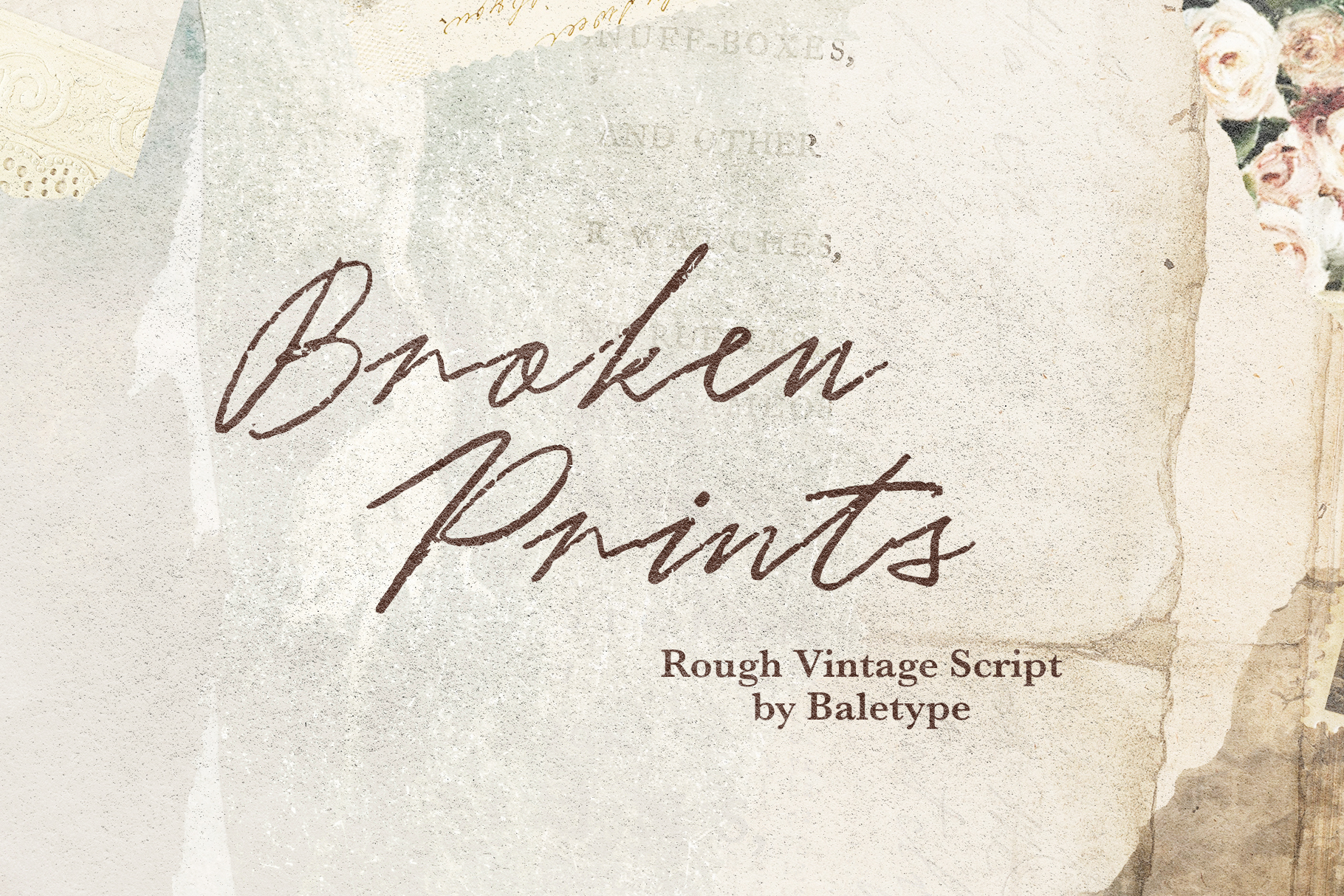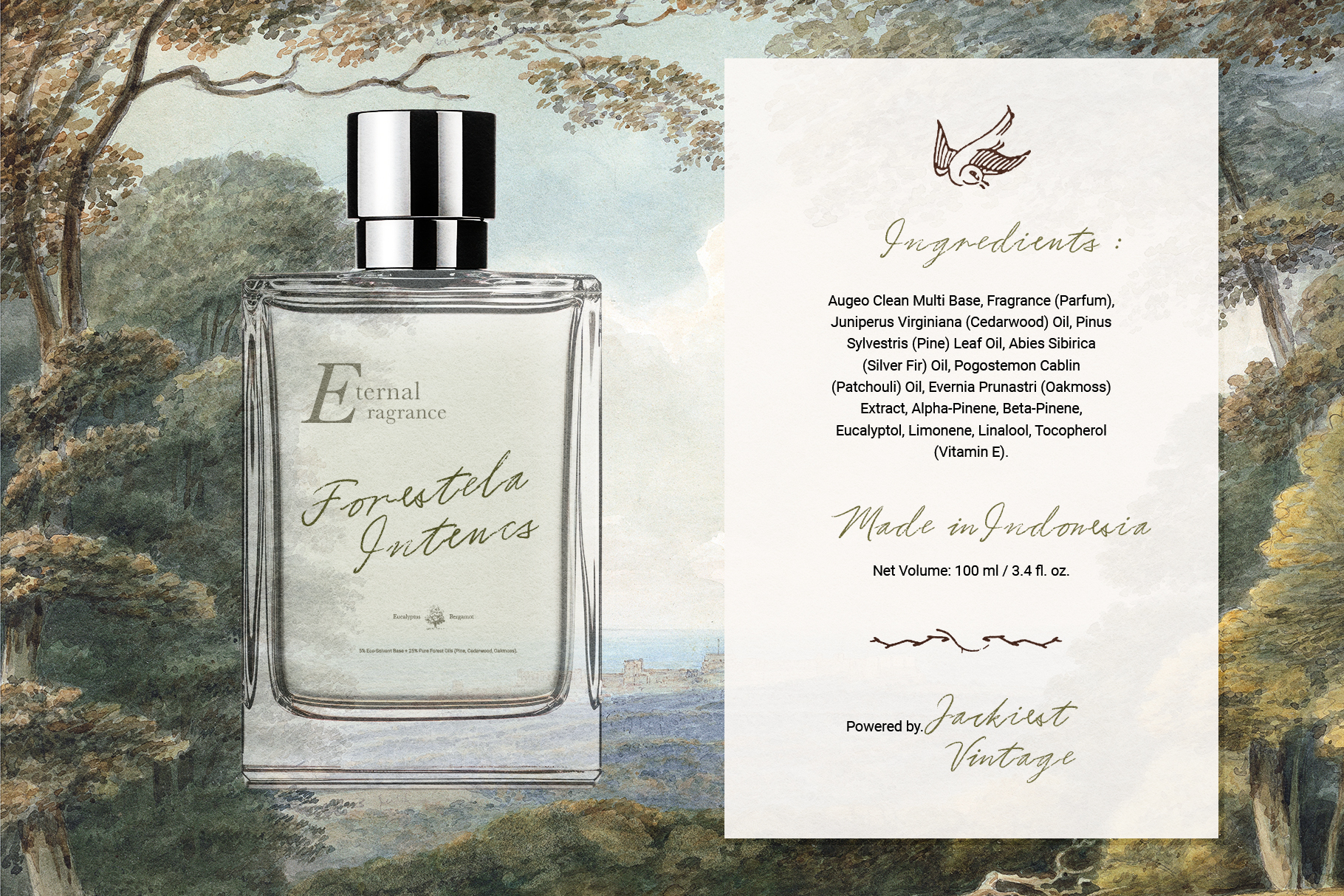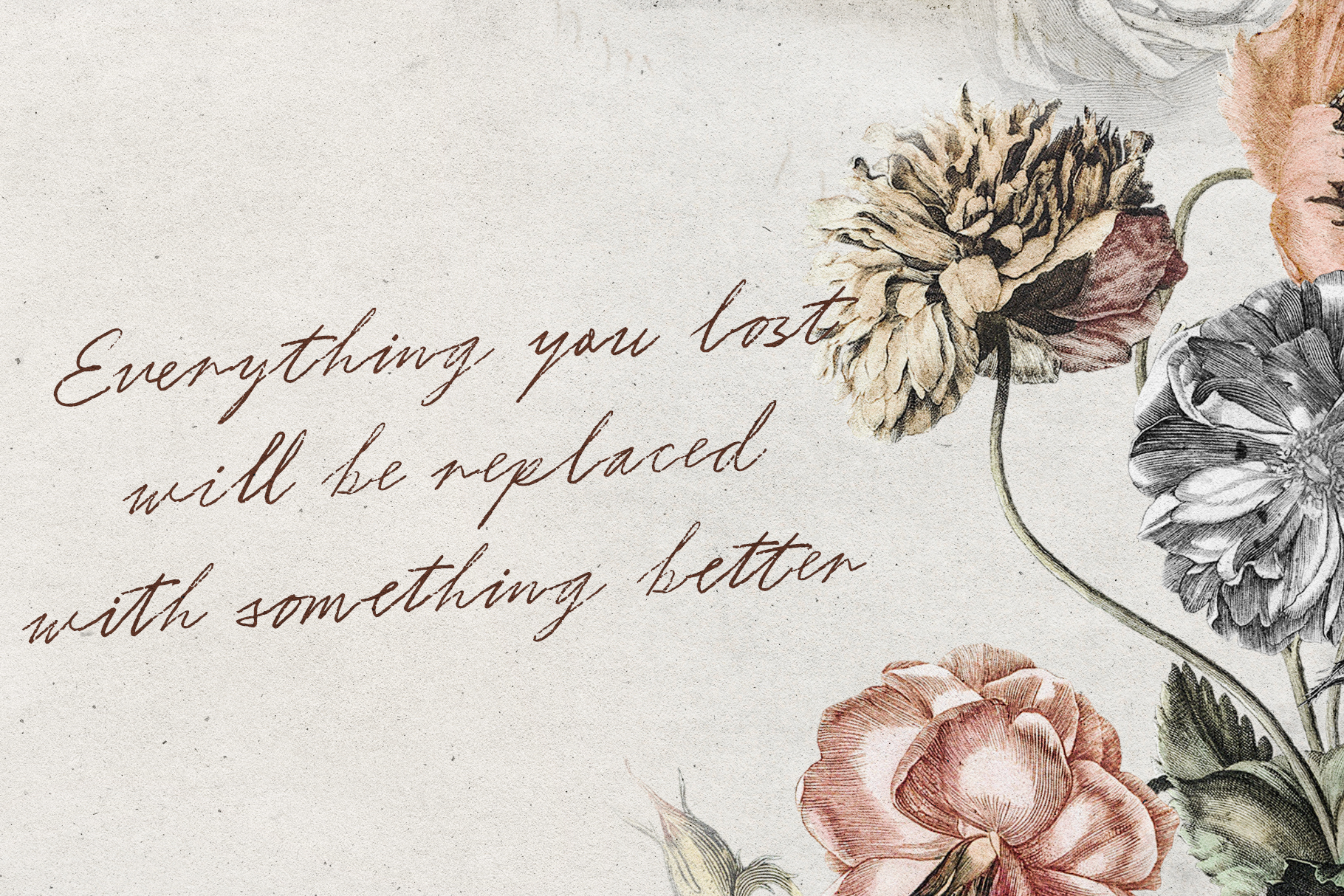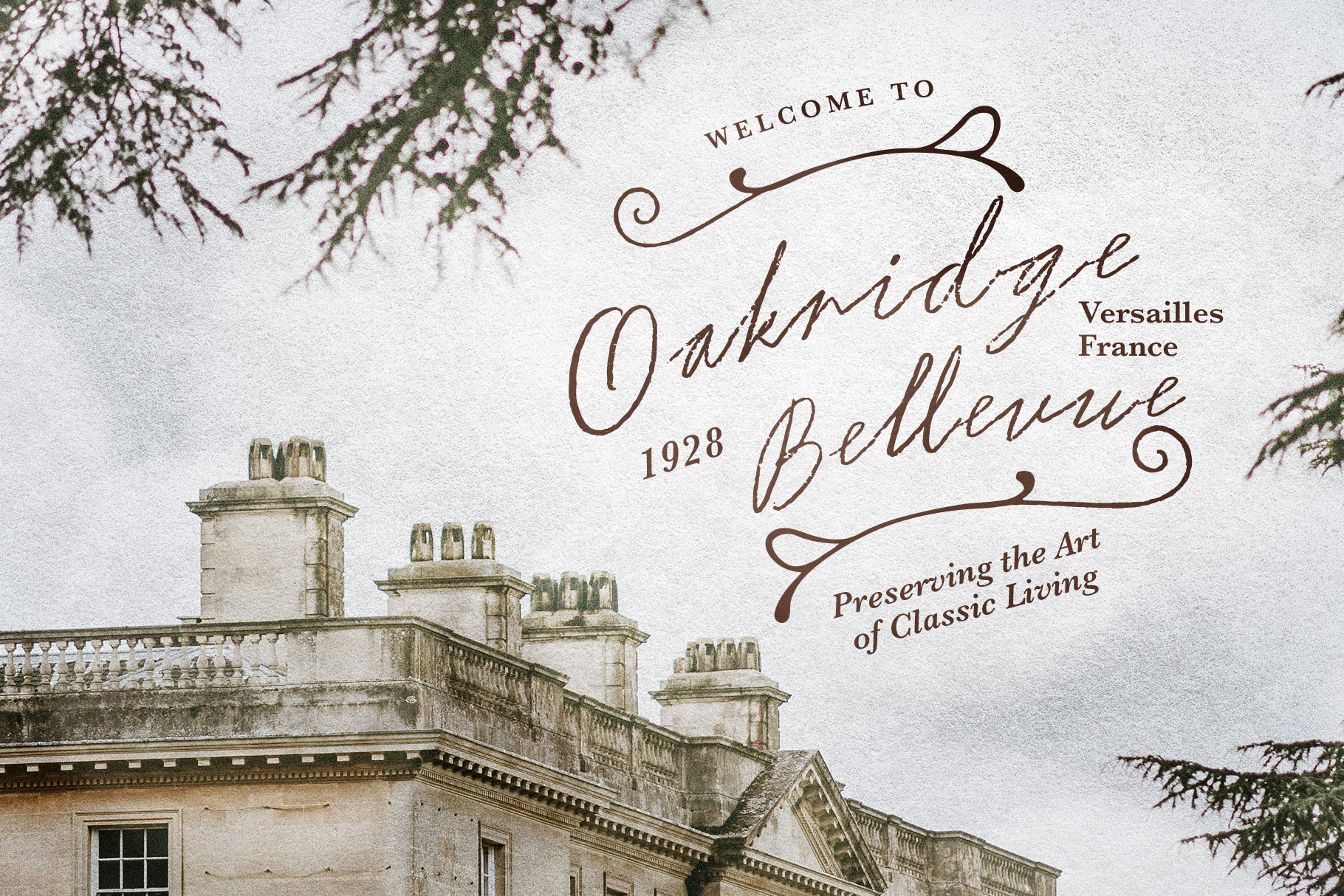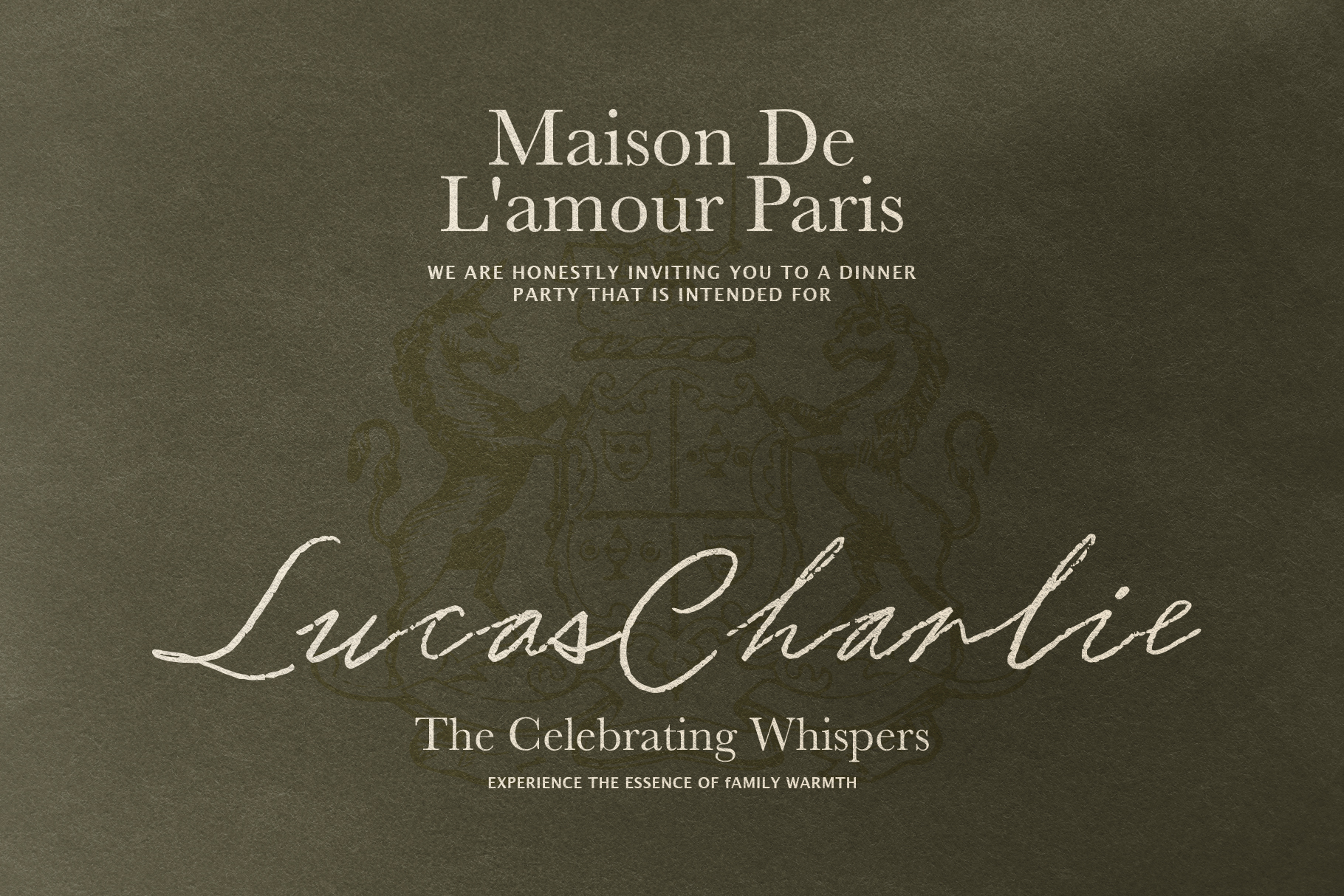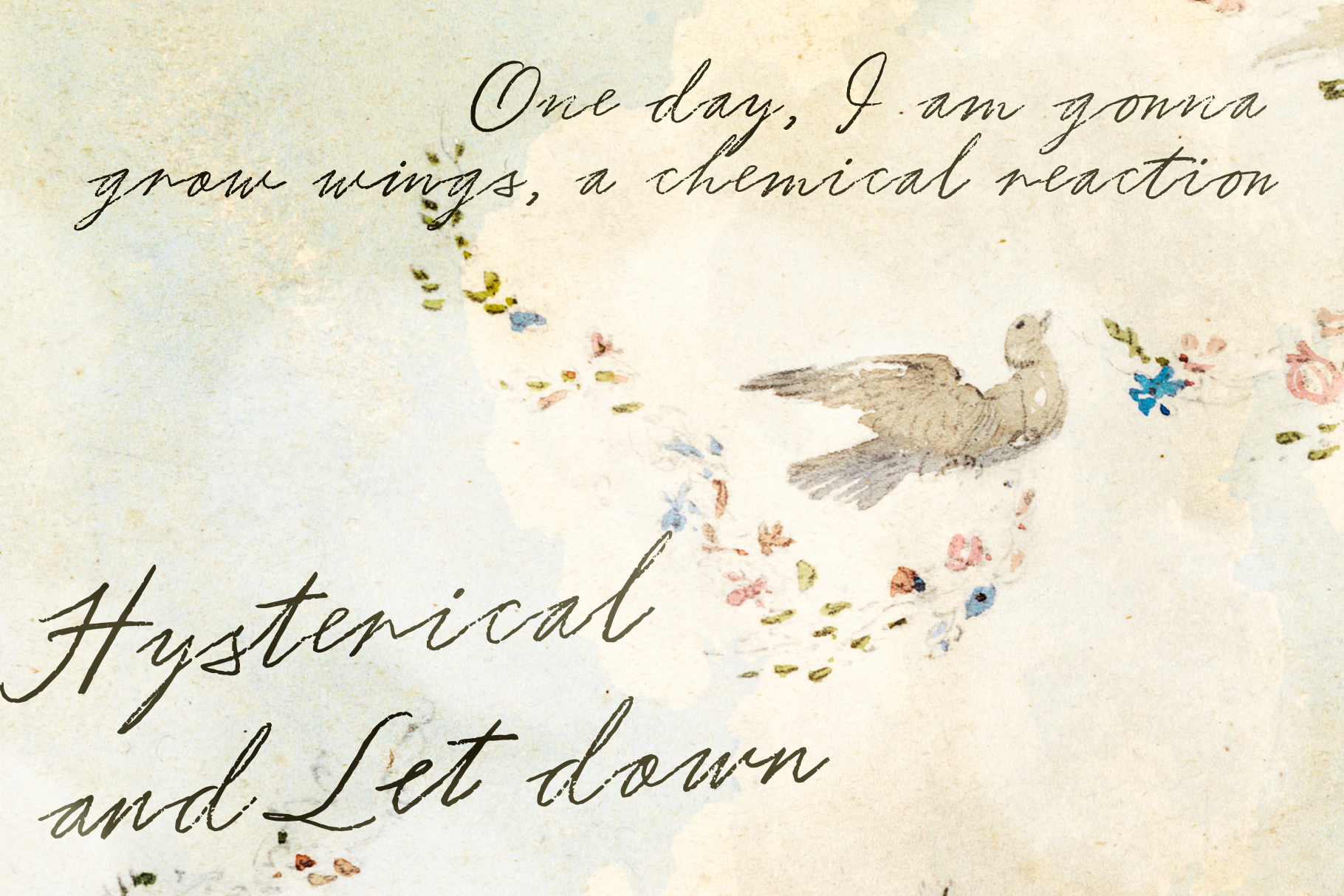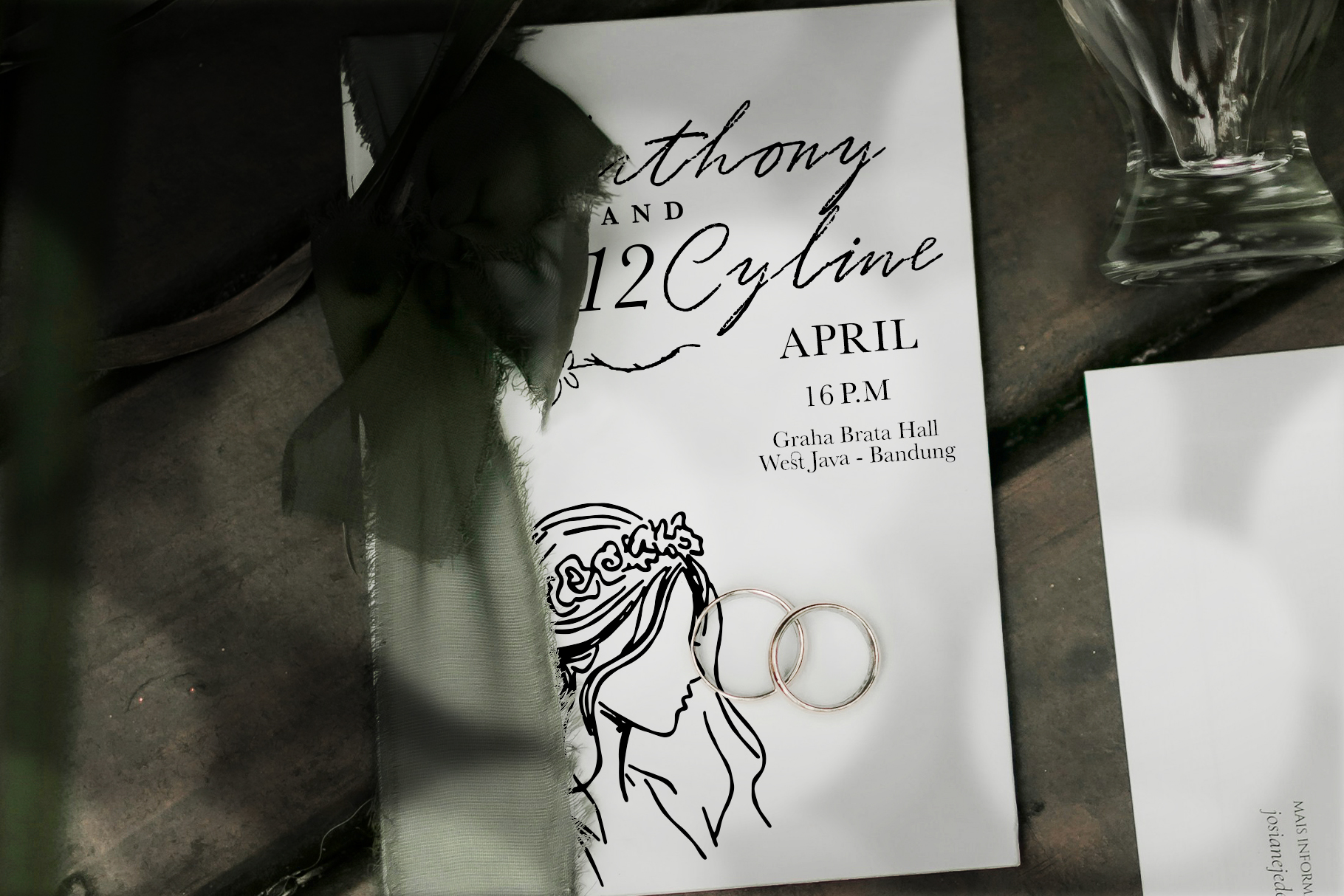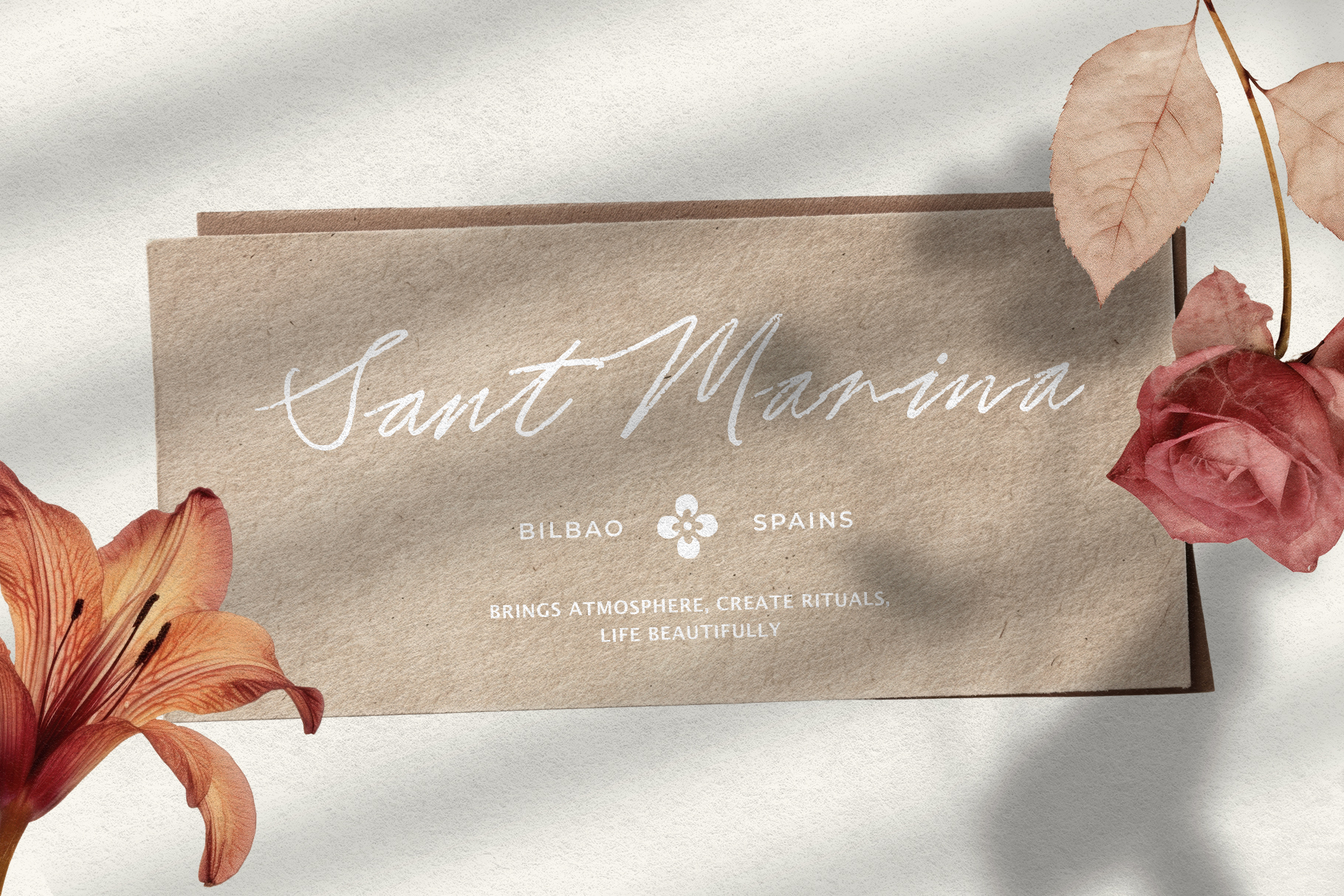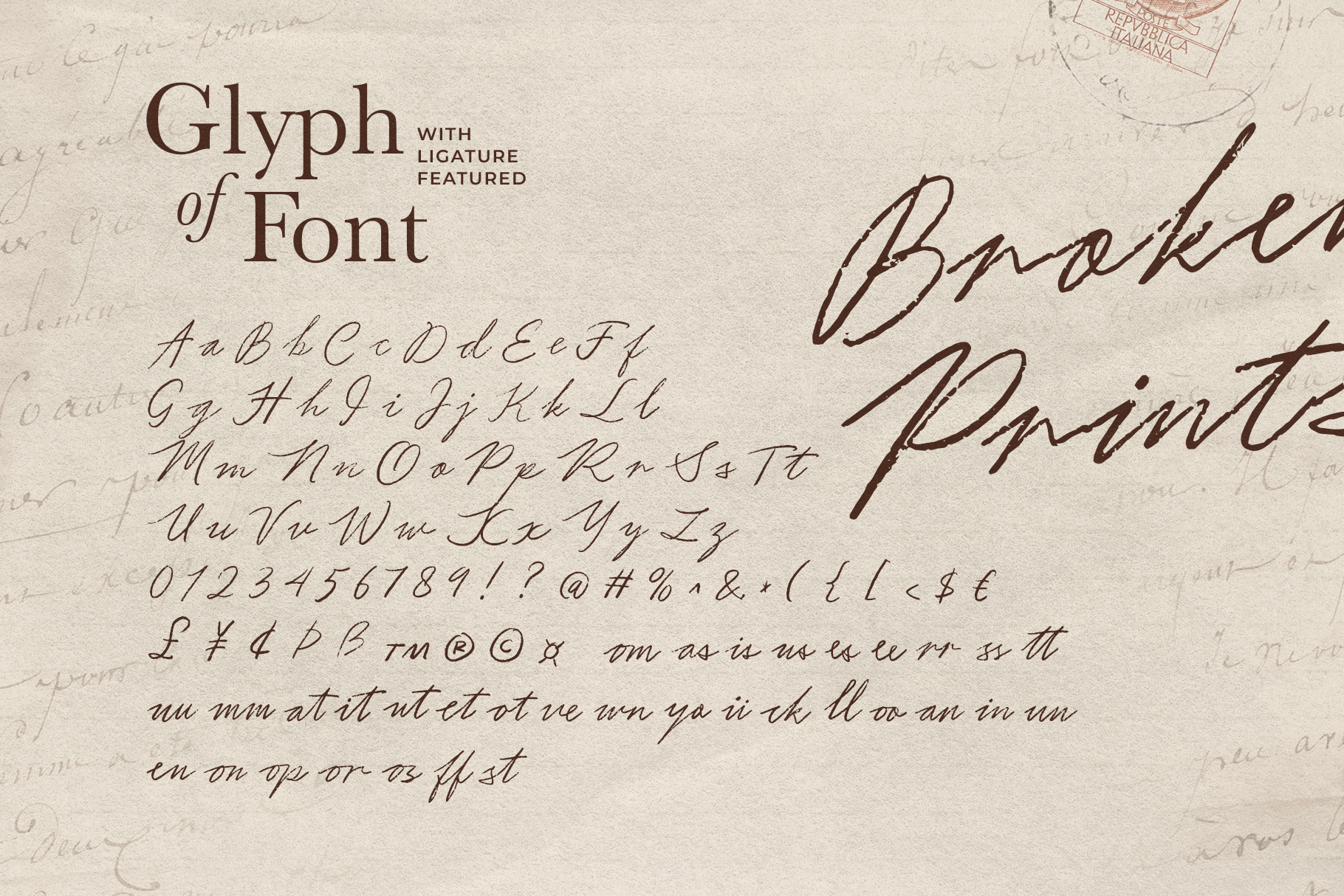
Broken Prints is a rough and vintage looks script. With textured and rugged shape, this font will make your project looks naturally handwritten with faded ink. You can use this font for any purposes such as branding, logo, quote, handwriting, signature, or any designs that need to looks old and vintage. This font also include ligatures and already support multi language.
Broken Prints – Rough Vintage Script
Broken Prints is a rough and vintage looks script.